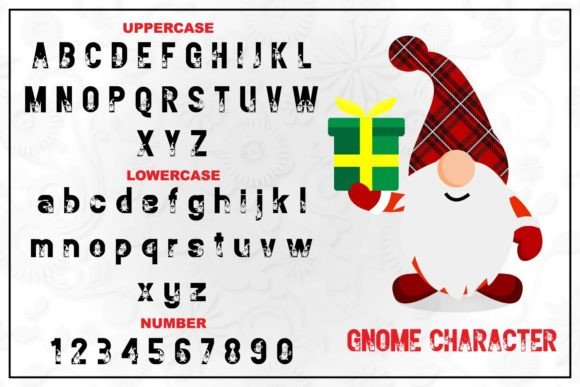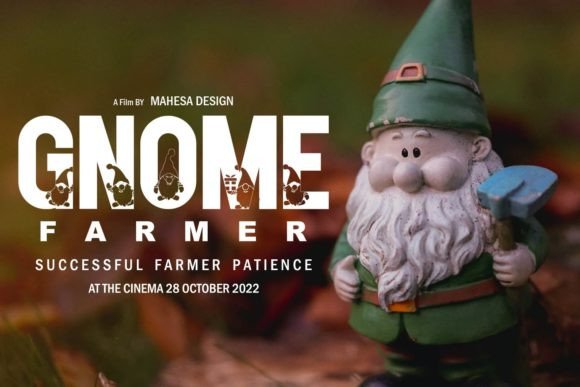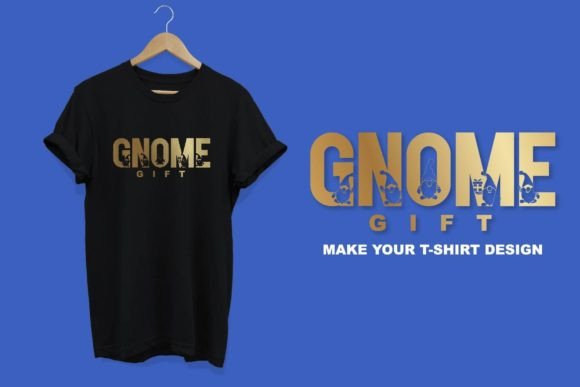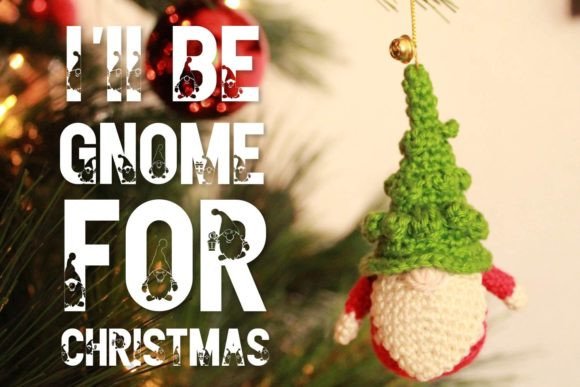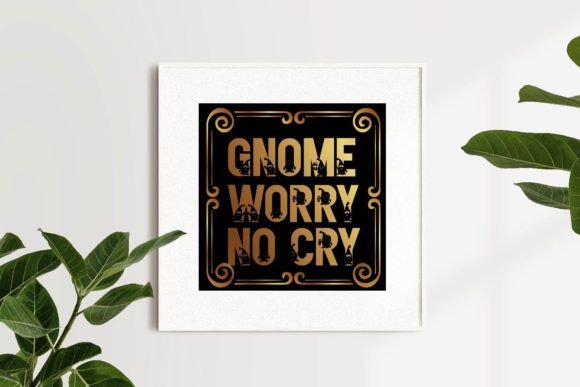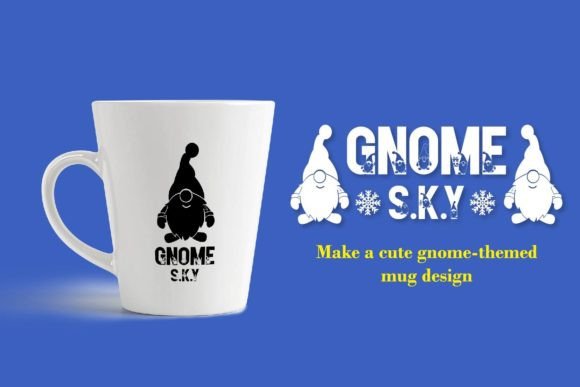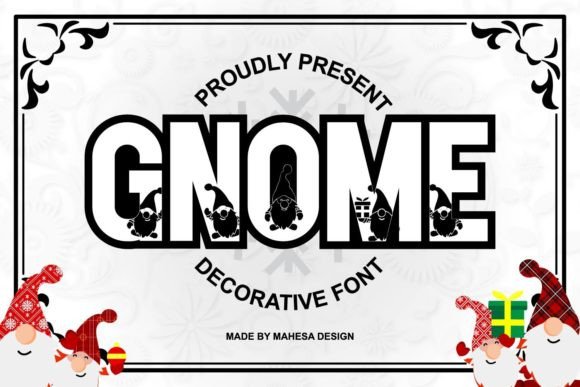
Gnome Font: The Perfect Choice for Kids-Themed Designs and Festive Decorations
Are you a designer or crafter looking for a fun and playful font to add a touch of whimsy to your kids-themed designs or festive decorations? Look no further than the Gnome Font! This adorable font features cute, childish, and friendly decorative letters, each showcasing a charming gnome character. In this article, we’ll explore the features and benefits of the Gnome Font, and how it can elevate your designs and crafts to the next level.
Gnome Font is a unique and creative typeface that showcases a delightful gnome character in each letter. This font is perfect for designers and crafters who want to add a playful and imaginative touch to their work. The Gnome Font is highly versatile and can be used for a wide range of projects, from kids-themed designs and decorations to festive holiday crafts and gifts.
- Cute and playful design: Each letter in the Gnome Font features a charming gnome character, making it perfect for kids-themed designs and decorations.
- Childish and friendly: The font’s playful and imaginative design makes it ideal for projects aimed at children or those who are young at heart.
- Decorative and whimsical: The Gnome Font adds a touch of magic and wonder to any design or craft project.
- Highly versatile: The font can be used for a wide range of projects, from digital designs to print crafts.
The Gnome Font is a perfect choice for designers and crafters who create kids-themed designs, such as:
- T-shirts and hoodies: Add a playful touch to kids’ apparel with the Gnome Font.
- Mugs and water bottles: Create fun and colorful drinkware with the Gnome Font.
- Decorations and party supplies: Use the Gnome Font to create festive decorations and party supplies, such as banners, garlands, and gift tags.
- Children’s books and educational materials: The Gnome Font is perfect for creating engaging and interactive children’s books and educational materials.
The Gnome Font is also perfect for preparing for this year’s Christmas event. Use the font to create:
- Festive decorations: Create holiday decorations, such as banners, garlands, and gift tags, with the Gnome Font.
- Holiday cards and invitations: Add a playful touch to your holiday cards and invitations with the Gnome Font.
- Christmas gifts and wrapping paper: Use the Gnome Font to create unique and personalized Christmas gifts and wrapping paper.
- Experiment with colors: The Gnome Font looks great in bright and bold colors, so don’t be afraid to experiment and find the perfect color scheme for your project.
- Mix and match with other fonts: Combine the Gnome Font with other fonts to create a unique and visually appealing design.
- Use it for headlines and titles: The Gnome Font is perfect for headlines and titles, adding a playful and attention-grabbing touch to your design.
| Font Name | Gnome Font |
| Author | Mahesa Design |
The Gnome Font is a fun and playful font that’s perfect for kids-themed designs, festive decorations, and holiday crafts. With its cute and childish design, highly versatile nature, and wide range of uses, the Gnome Font is a must-have for designers and crafters. So why not give it a try and add a touch of whimsy and magic to your next project?